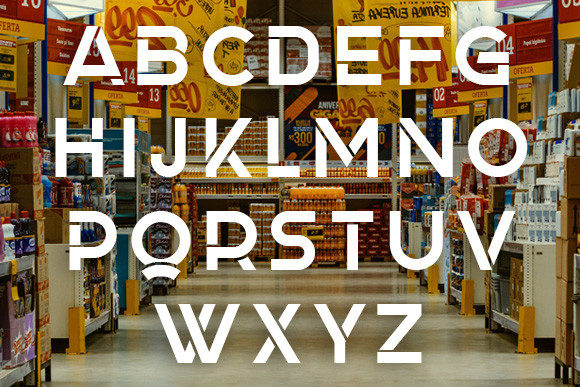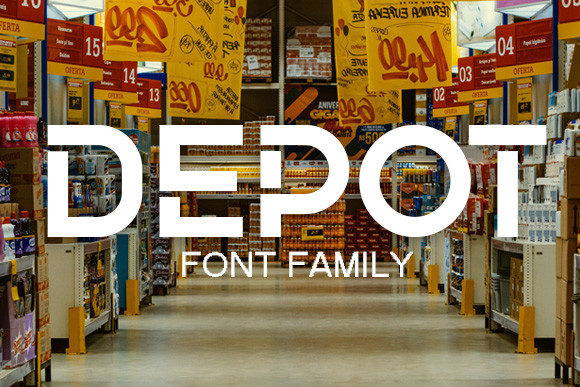
Introducing Depot Font: Elevate Your Designs with Style and Elegance
In the world of design, fonts play a crucial role in conveying messages, evoking emotions, and creating lasting impressions. For designers and crafters seeking a stylish and elegant typographic solution, Depot Font is an exceptional choice. This versatile Sans Serif/Display font is perfect for a wide range of applications, from banners and posters to logos, business cards, and more.
What is Depot Font?
Depot Font is a meticulously crafted typeface that exudes sophistication and refinement. Its clean lines, precise curves, and balanced proportions make it an ideal choice for designs that demand attention to detail and a touch of elegance. The font comes in two distinct styles: Regular and Filled, offering flexibility and creative freedom for designers.
Key Features of Depot Font
- Stylish and Elegant Design: Depot Font boasts a sleek and modern aesthetic, perfect for creating visually stunning designs that leave a lasting impact.
- Sans Serif/Display Font: The font’s sans serif design ensures clarity and legibility, while its display font characteristics make it perfect for headlines, titles, and emphasis.
- Regular and Filled Styles: The two font styles offer versatility and allow designers to experiment with different looks and feels, ensuring their creations stand out.
- Wide Range of Applications: Depot Font is suitable for various design projects, including banners, posters, quotes, greeting cards, logos, business cards, and more.
Use Cases for Depot Font
Depot Font’s versatility makes it an excellent choice for numerous design projects. Here are some inspiring use cases:
- Banners and Posters: Create eye-catching banners and posters with Depot Font, perfect for advertising, promotions, or events.
- Logos and Branding: Use Depot Font to craft unique and memorable logos that reflect your brand’s personality and values.
- Greeting Cards and Invitations: Add a touch of elegance to your greeting cards and invitations with Depot Font’s stylish and refined design.
- Business Cards and Stationery: Elevate your business cards, letterheads, and other stationery with Depot Font’s professional and sophisticated look.
Benefits of Using Depot Font
By incorporating Depot Font into your designs, you can:
- Enhance Visual Appeal: Depot Font’s stylish and elegant design will instantly elevate the visual appeal of your creations.
- Increase Legibility: The font’s clear and balanced design ensures that your message is conveyed clearly and effectively.
- Save Time and Effort: With Depot Font’s versatility and flexibility, you can experiment with different styles and designs without starting from scratch.
Depot Font is an exceptional typographic solution for designers and crafters seeking a stylish and elegant Sans Serif/Display font. Its versatility, flexibility, and refined design make it perfect for a wide range of applications. By incorporating Depot Font into your designs, you can elevate your creations, enhance visual appeal, and leave a lasting impression on your audience.